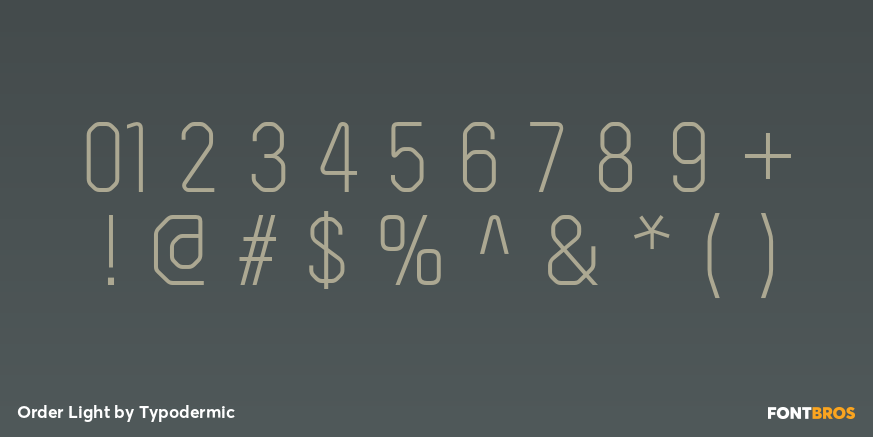
Order Light
Some technical organizations need to look official before they look futuristic. A conventional neo-grotesk provides credibility but can feel too familiar; a conspicuous sci-fi face establishes the setting at the cost of plausibility. Order occupies the space between them.
The design was deliberately built around Univers-like proportions, then pushed into a smooth octagonal construction. That familiar modernist skeleton gives Order an institutional, standardized quality, while the altered curves and corners make it feel slightly removed from ordinary corporate typography.
Order is especially useful for believable near-future institutions. Orbital freight authorities, lunar construction consortia, fusion-energy institutes, autonomous-transit operators and spaceport administrations need typography for departments, sectors, facilities and programs that feels routine inside the fictional world. Order can carry organization names, division headings, station sectors, vehicle classes and location graphics without turning every label into a declaration of science fiction.
Games and screen entertainment built around systems rather than spectacle can use the same logic. Infrastructure-management games, near-future thrillers, orbital-industry simulations and research-facility narratives need names for districts, contractors, agencies, cargo classes and controlled environments. Order works especially well on the institutional layer: the organizations and systems that make the world function.
Real infrastructure projects present a related problem. High-speed rail expansions, tunnel programs, offshore wind developments, district-energy systems, data-center campuses and major urban redevelopments all need public-facing identities in addition to engineering documentation. Order can handle project names, construction-hoarding headlines, stakeholder presentations, exhibition panels and milestone graphics with a technical tone that feels planned rather than decorative.
Engineering documentaries and megaproject media can use Order for titles, episode cards, location graphics and diagram headings covering automated ports, rail systems, satellite infrastructure, offshore energy and advanced manufacturing. Industrial-design exhibitions and research institutes can use the same language for exhibition titles, chronology bands, program names and showcase graphics.
Light, Regular and Bold weights with matching italics provide enough variation to build a compact display hierarchy. Order is for institutions, projects and fictional organizations that need to feel standardized and credible first, with the future arriving only in the details.